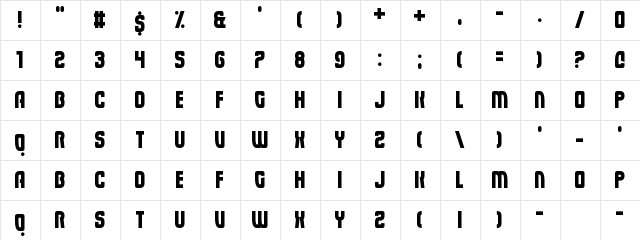
Eviscera Regular
Design Context for Eviscera Typeface
Eviscera is a composed and adaptable typeface that performs quietly and consistently across a wide range of design contexts.